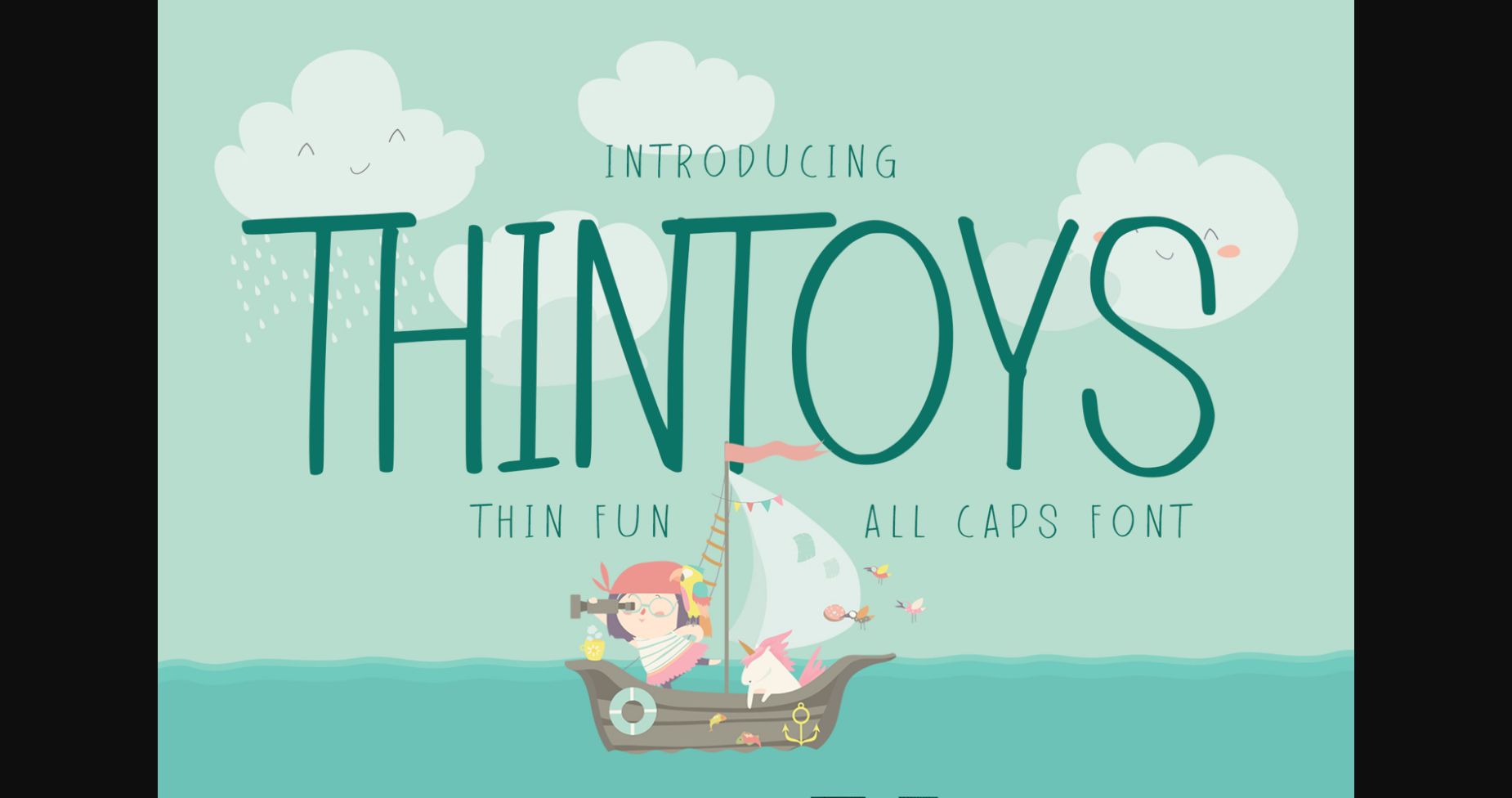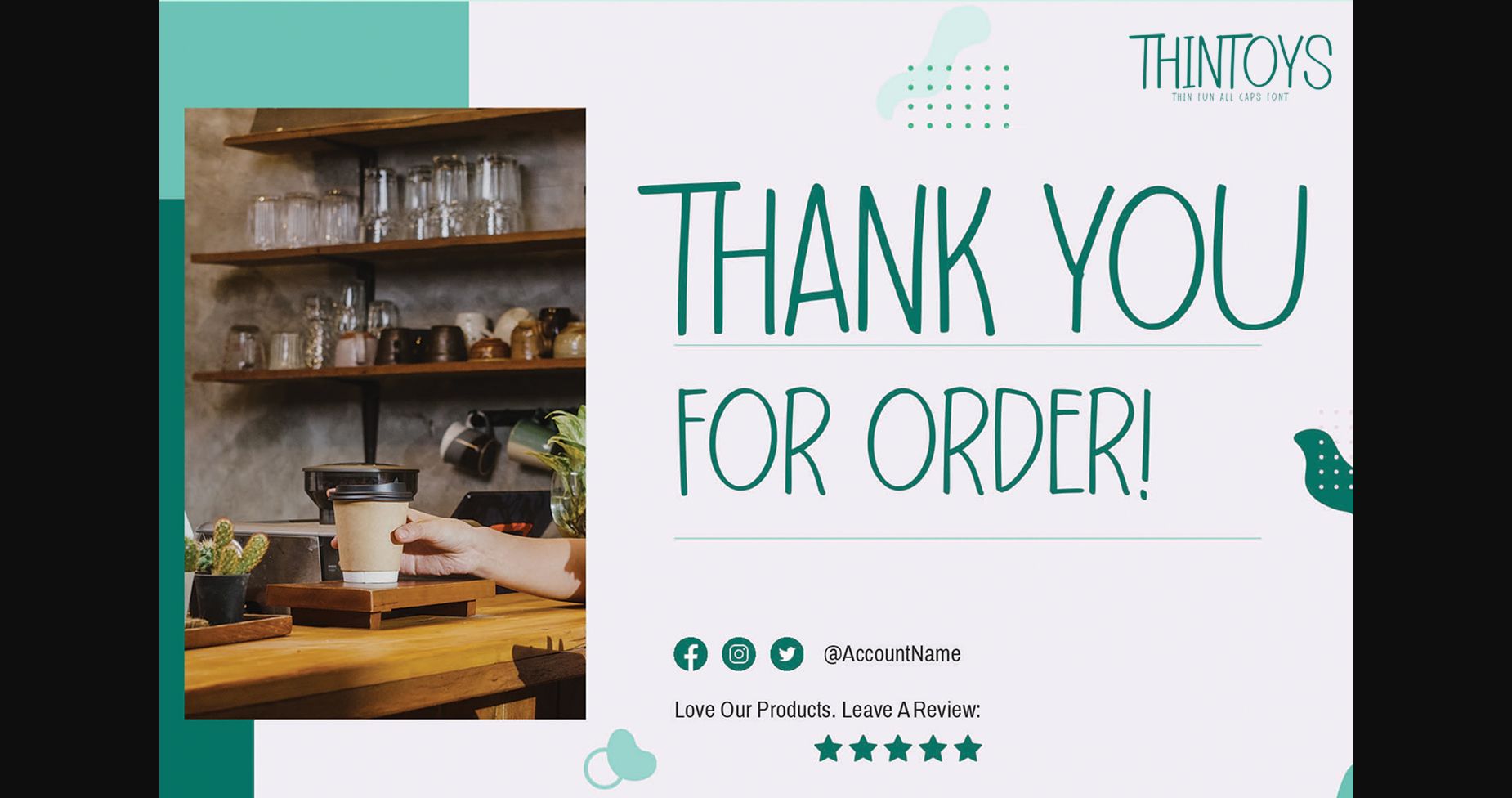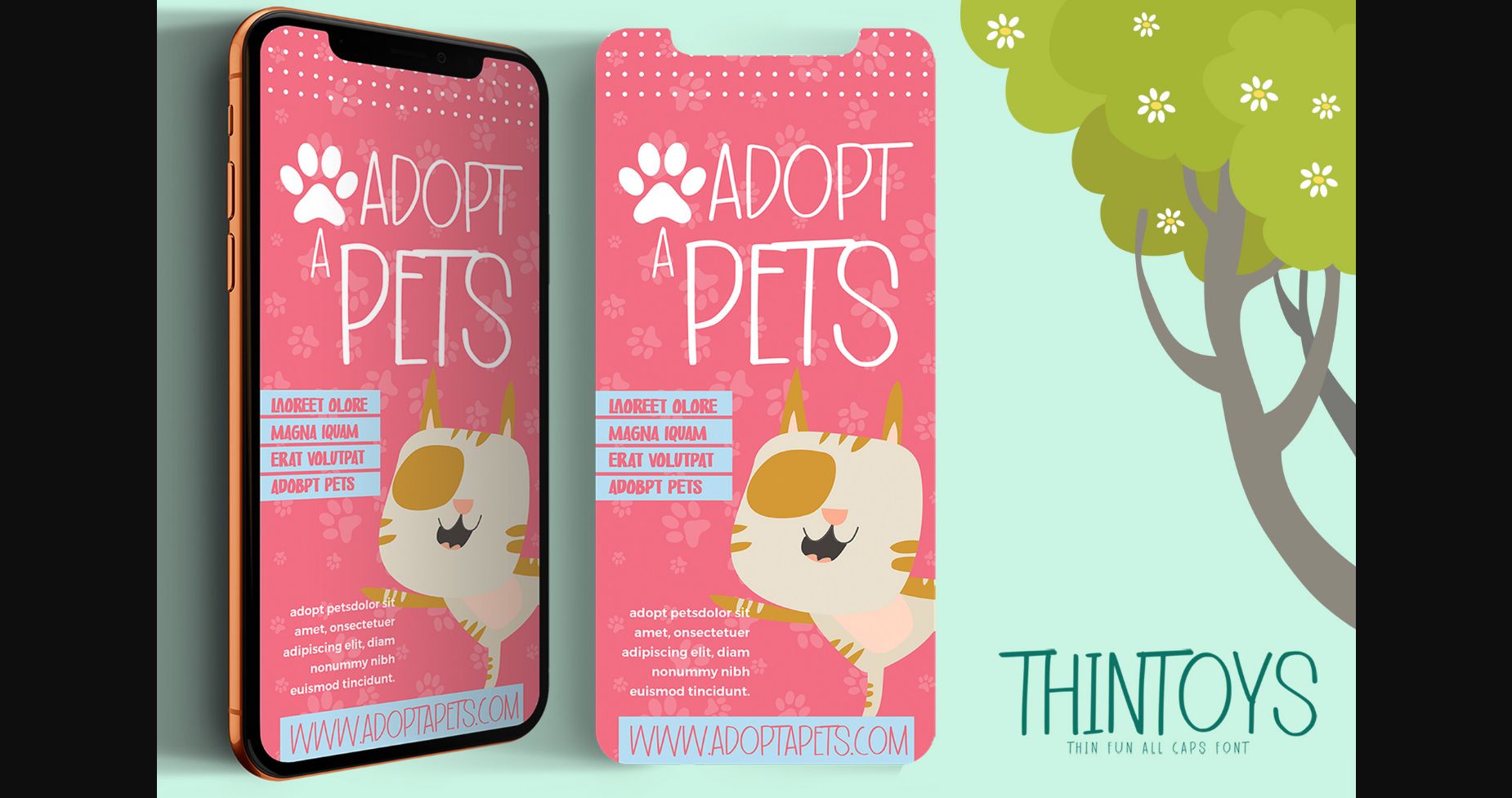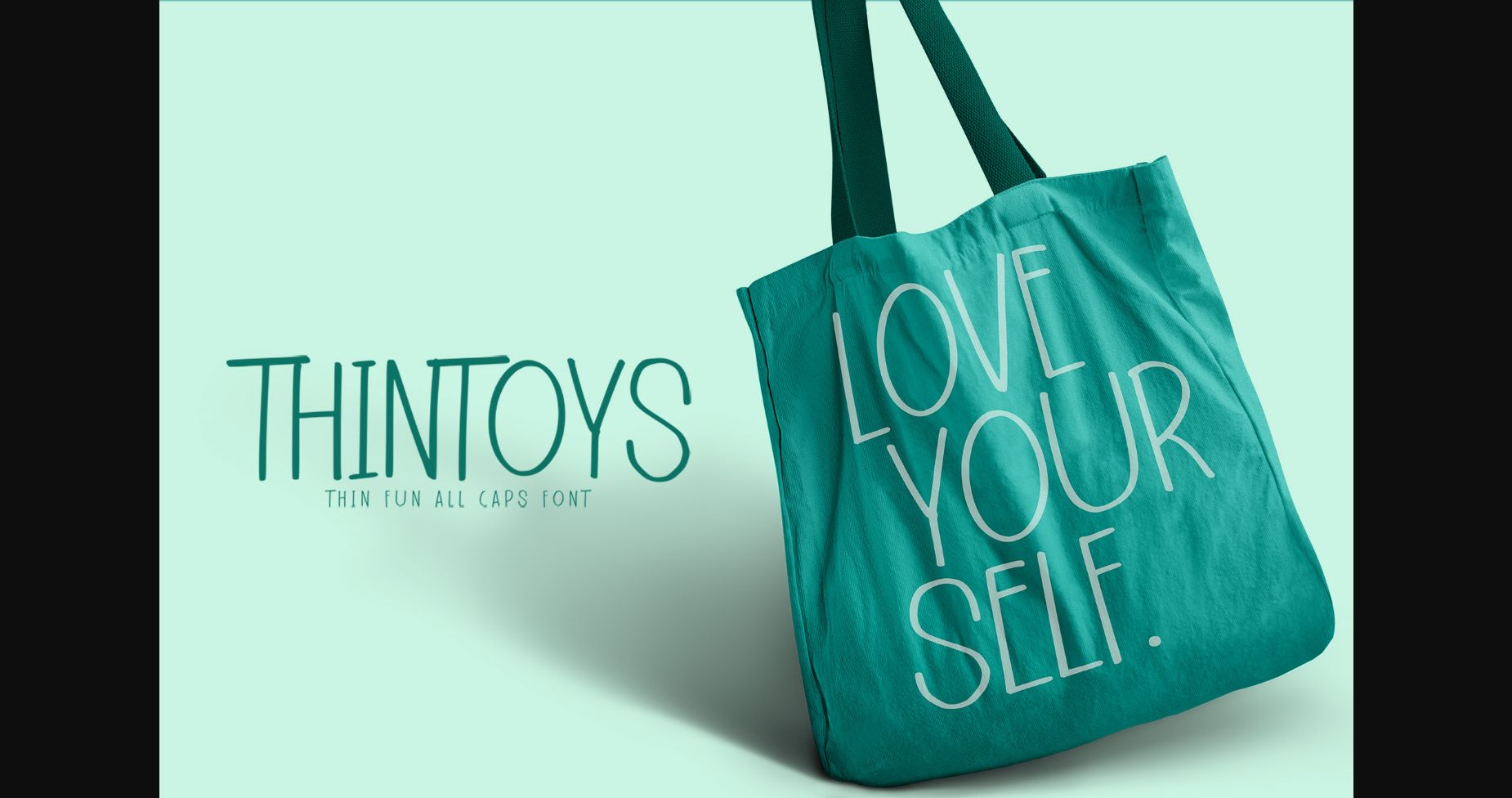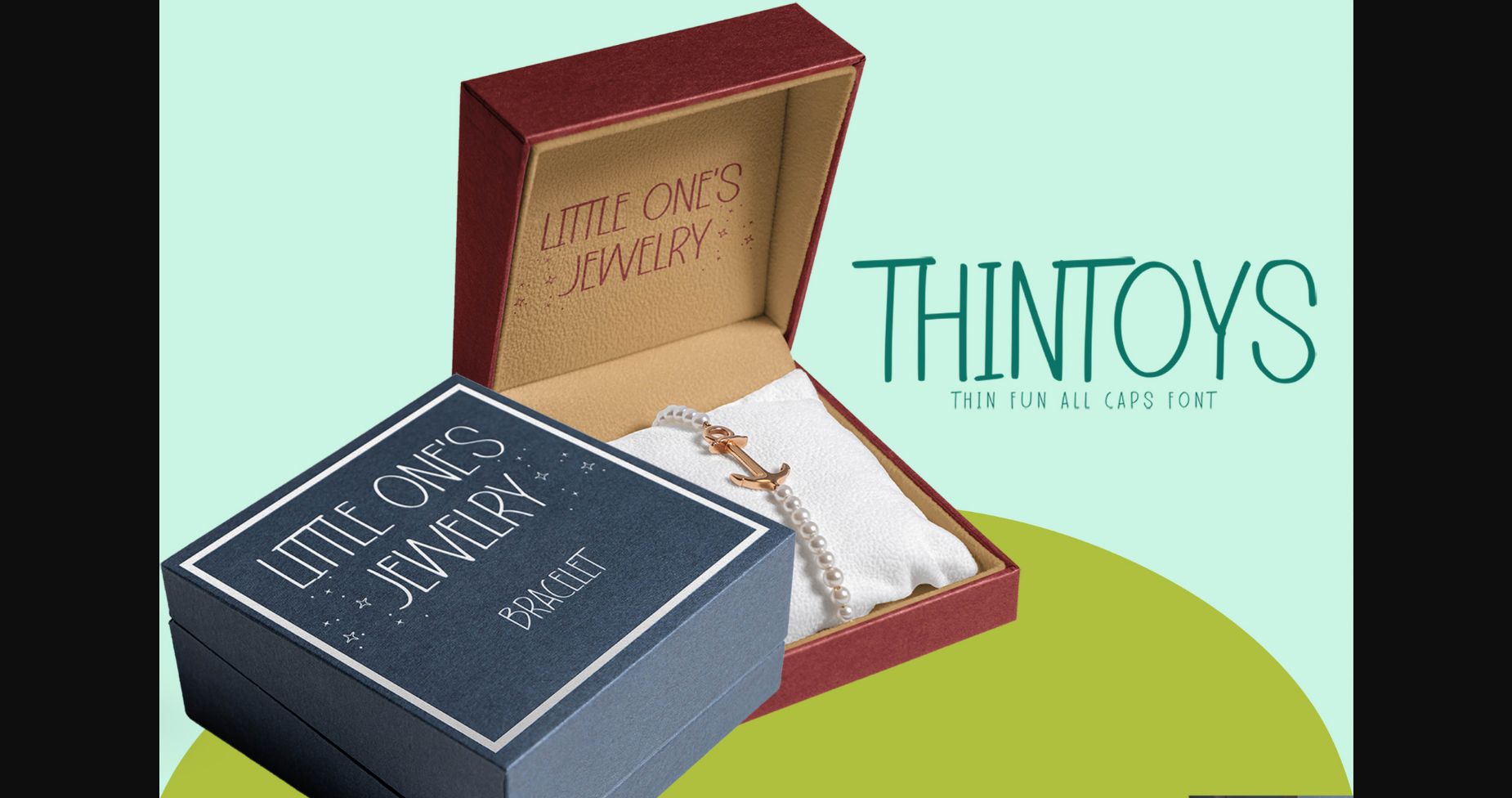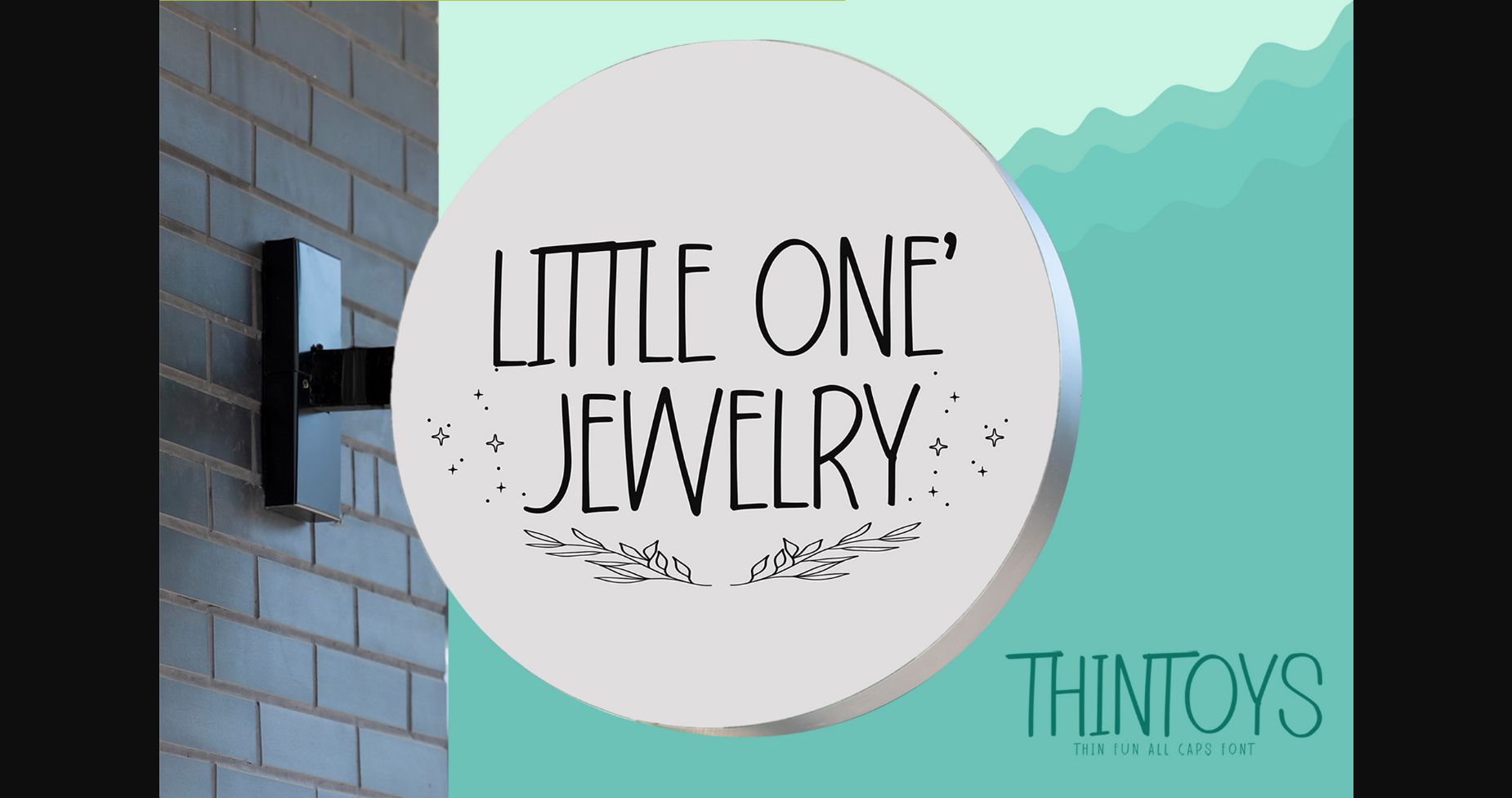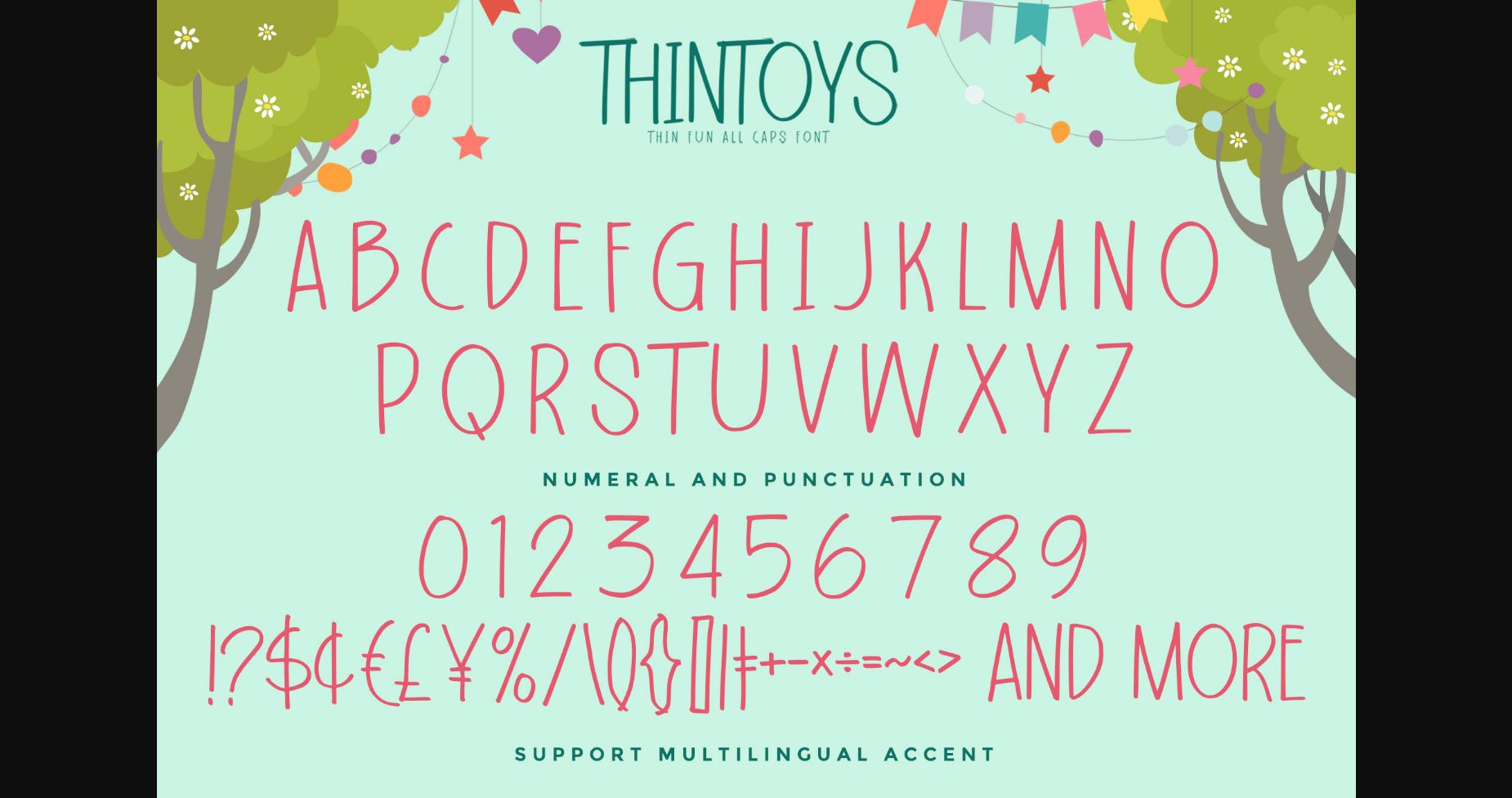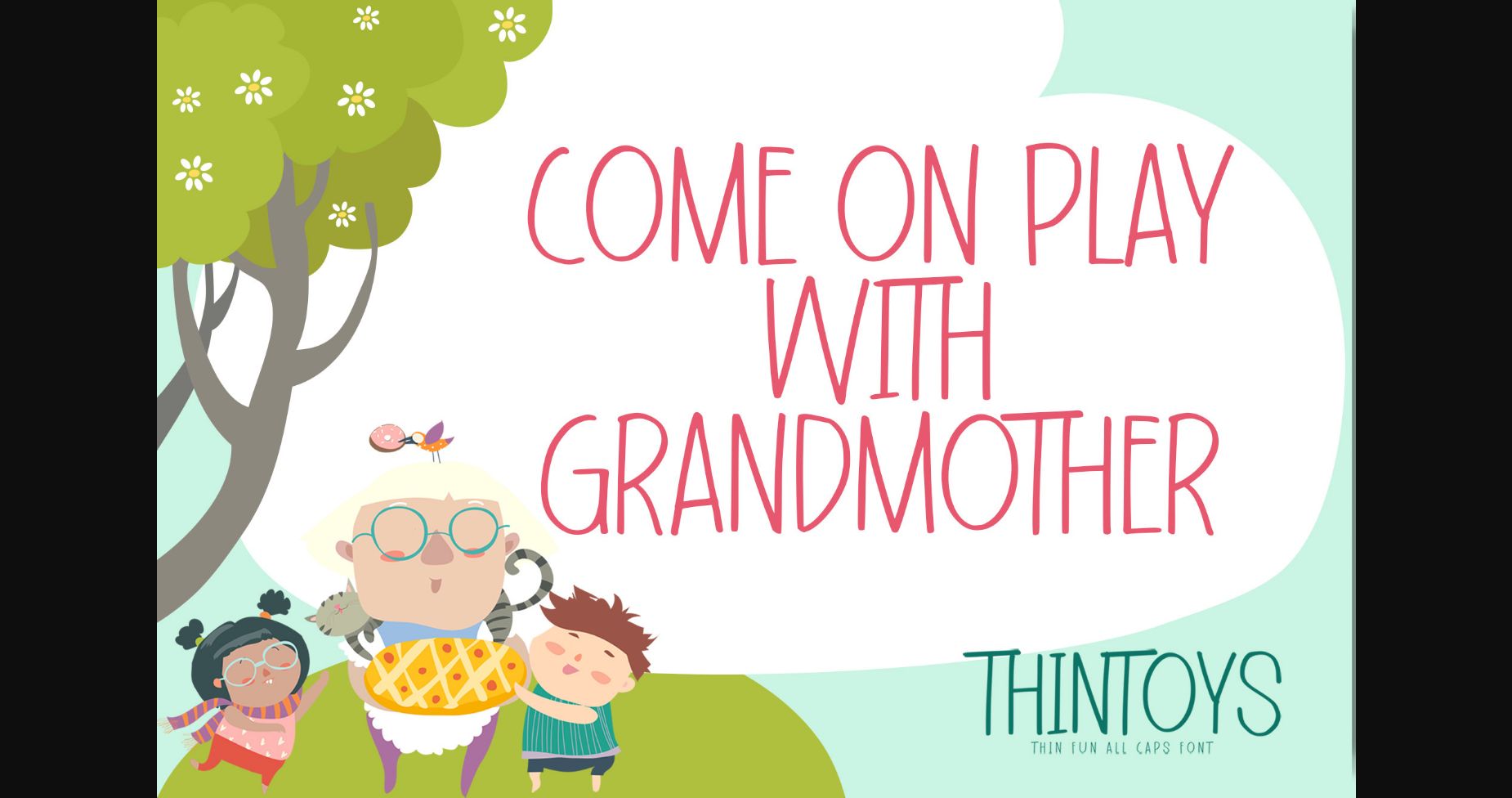
Thin Toys Font
About Thin Toys Font
Thin Toys is a thin, fun, all caps font and display for posters, t-shirt, packaging, branding, logotype, and more. Thin Toys font with strong and challenging nuances. Very suitable for the title, branding projects, typography, Logo, Poster, magazines, brochures, packaging.